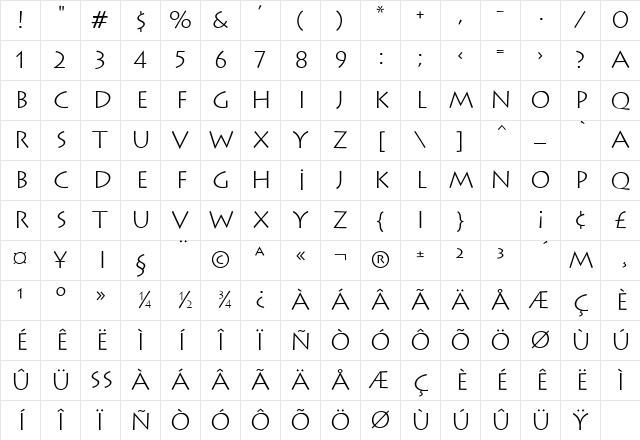
Complete Lithograph Light Plain glyph index. Displaying only characters natively supported by Lithograph Light Plain font.
Lithograph Light is a composed and adaptable typeface that performs quietly and consistently across a wide range of design contexts. Its slender proportions lend an understated elegance to any composition.